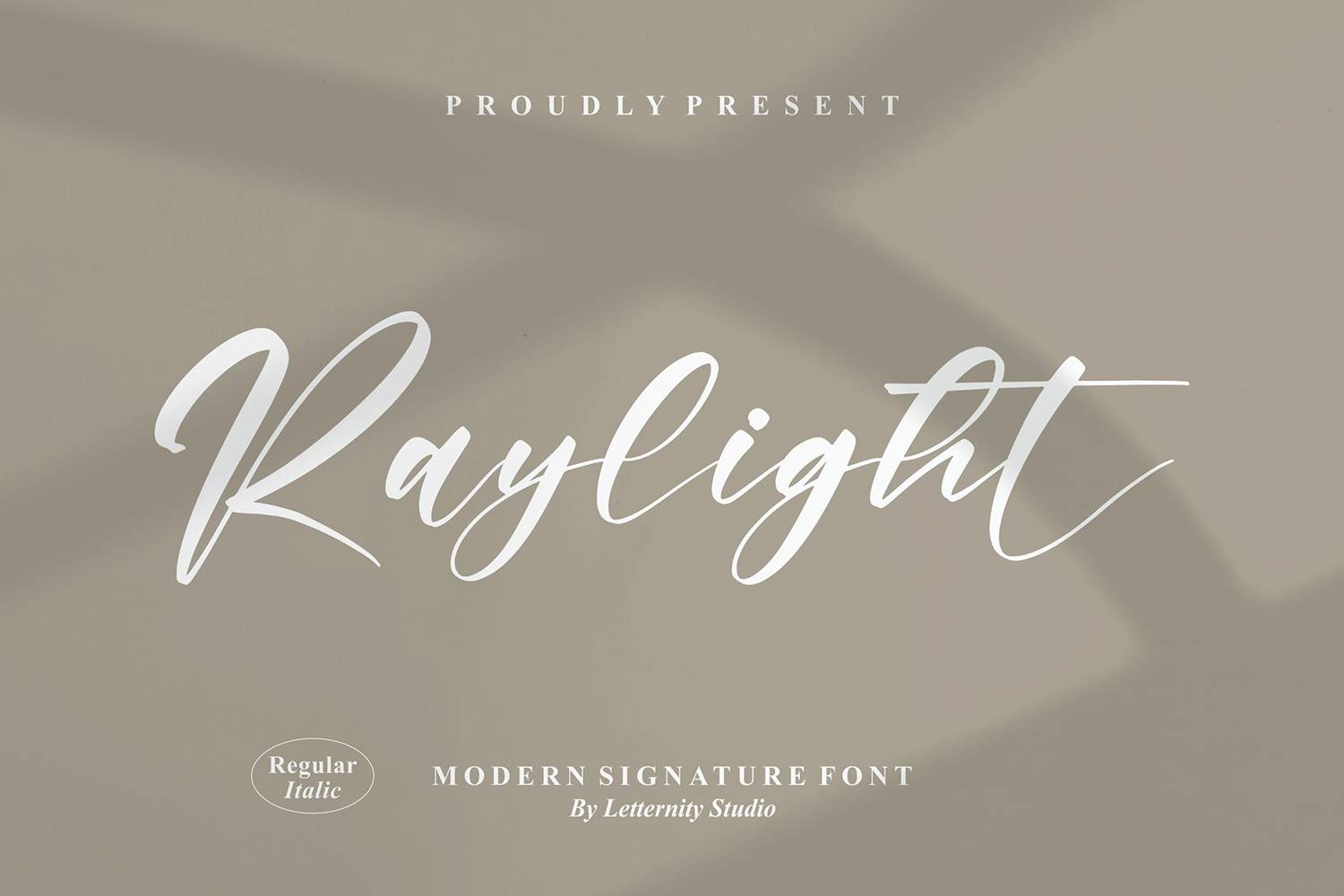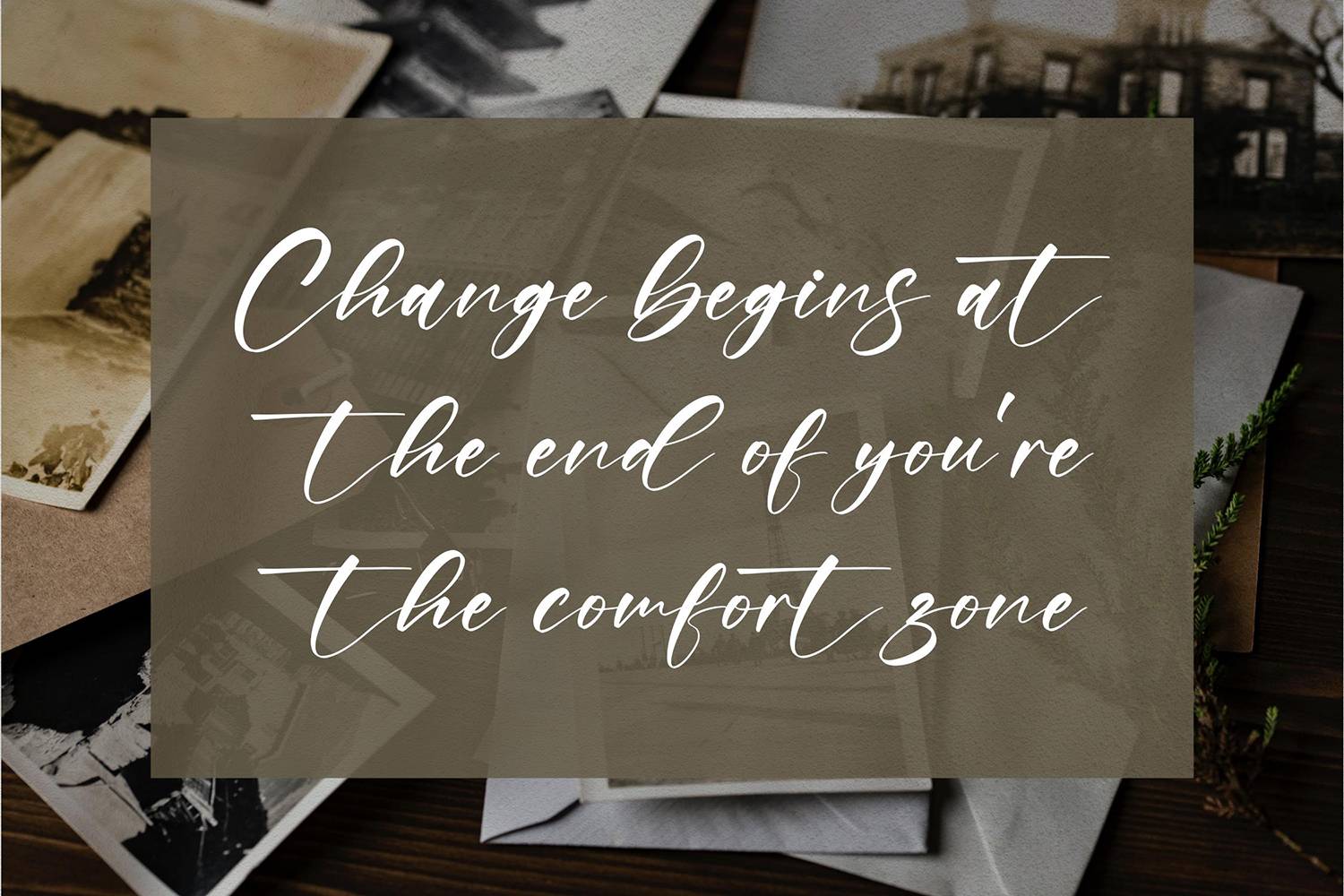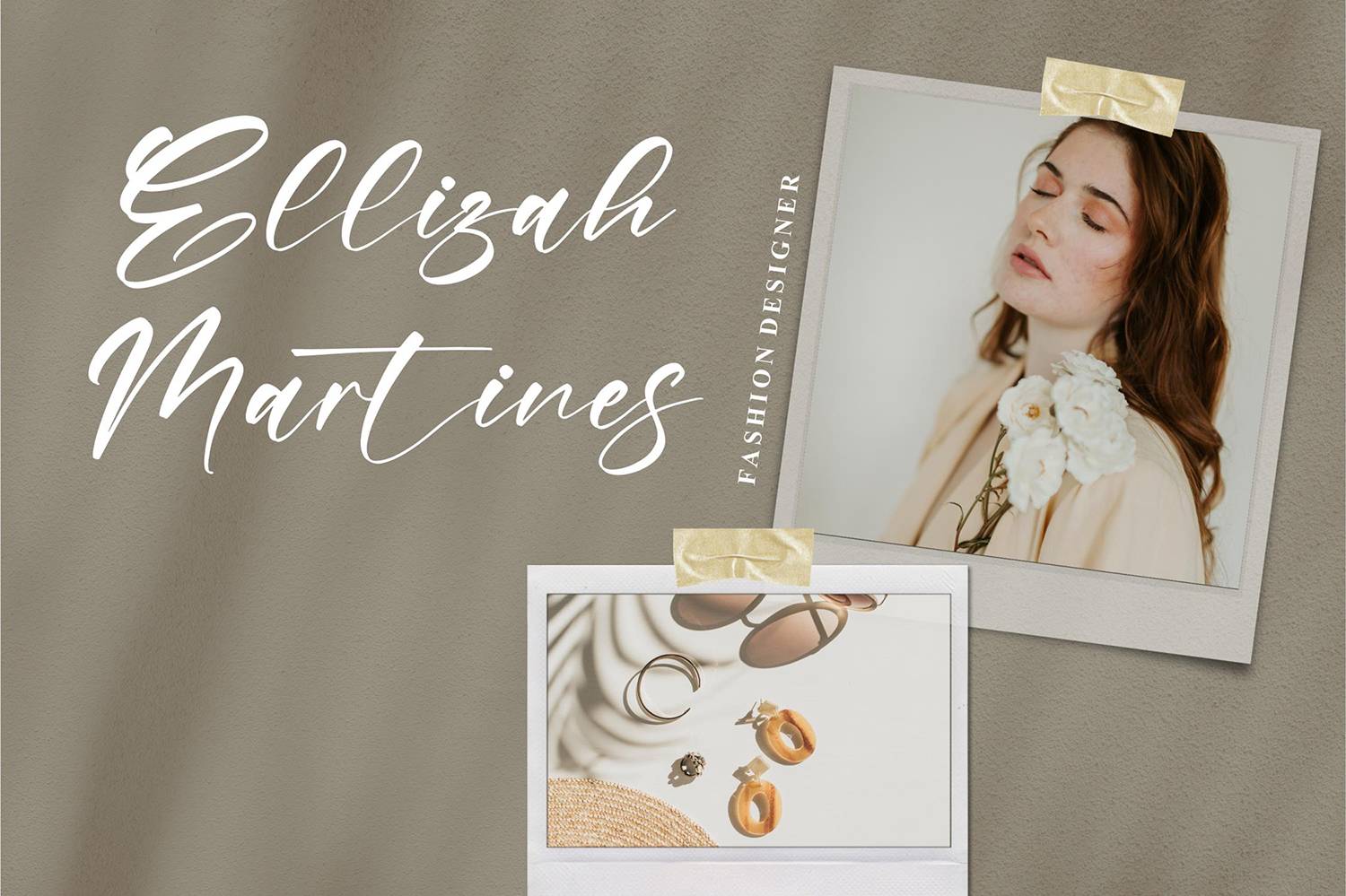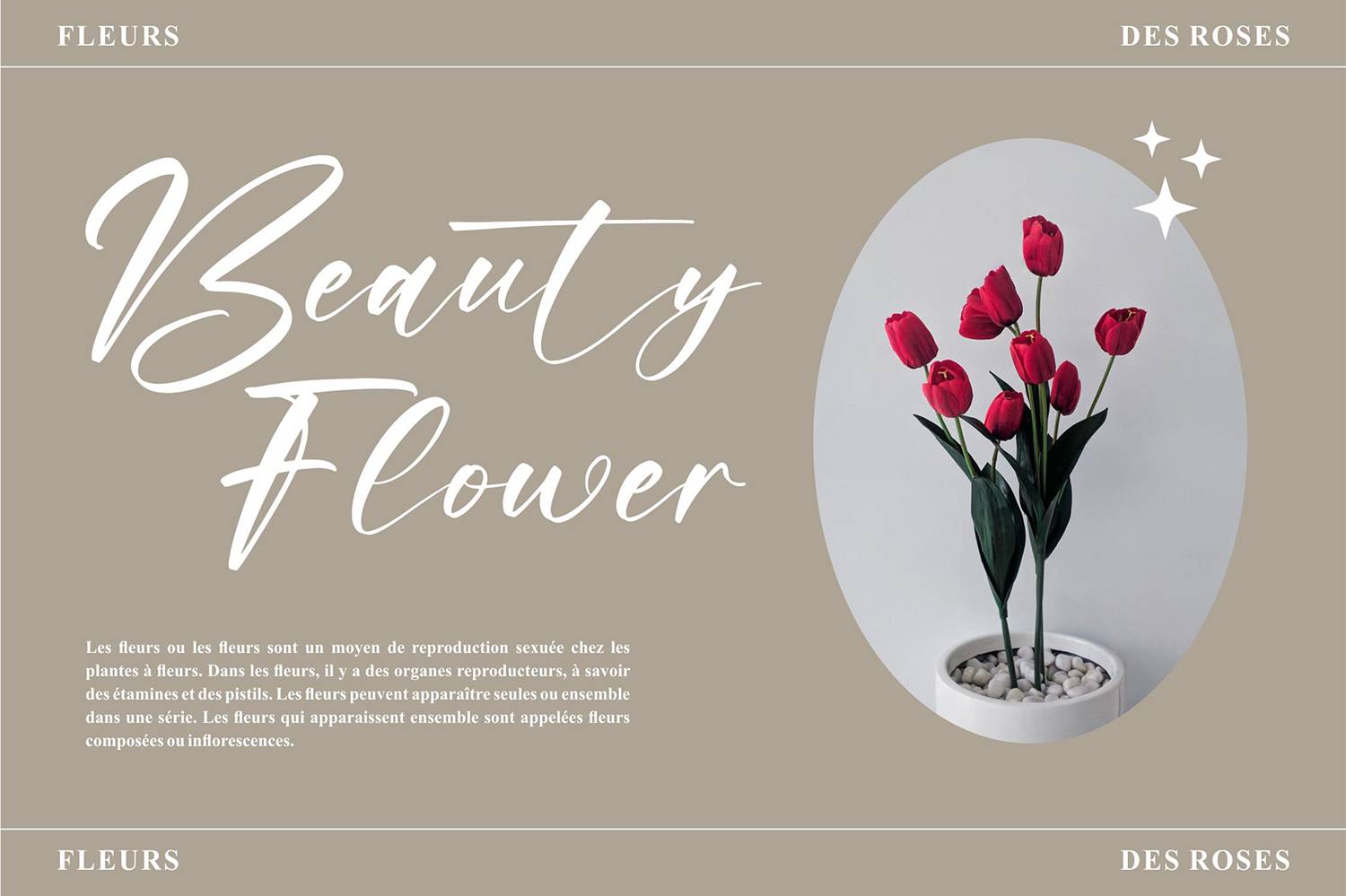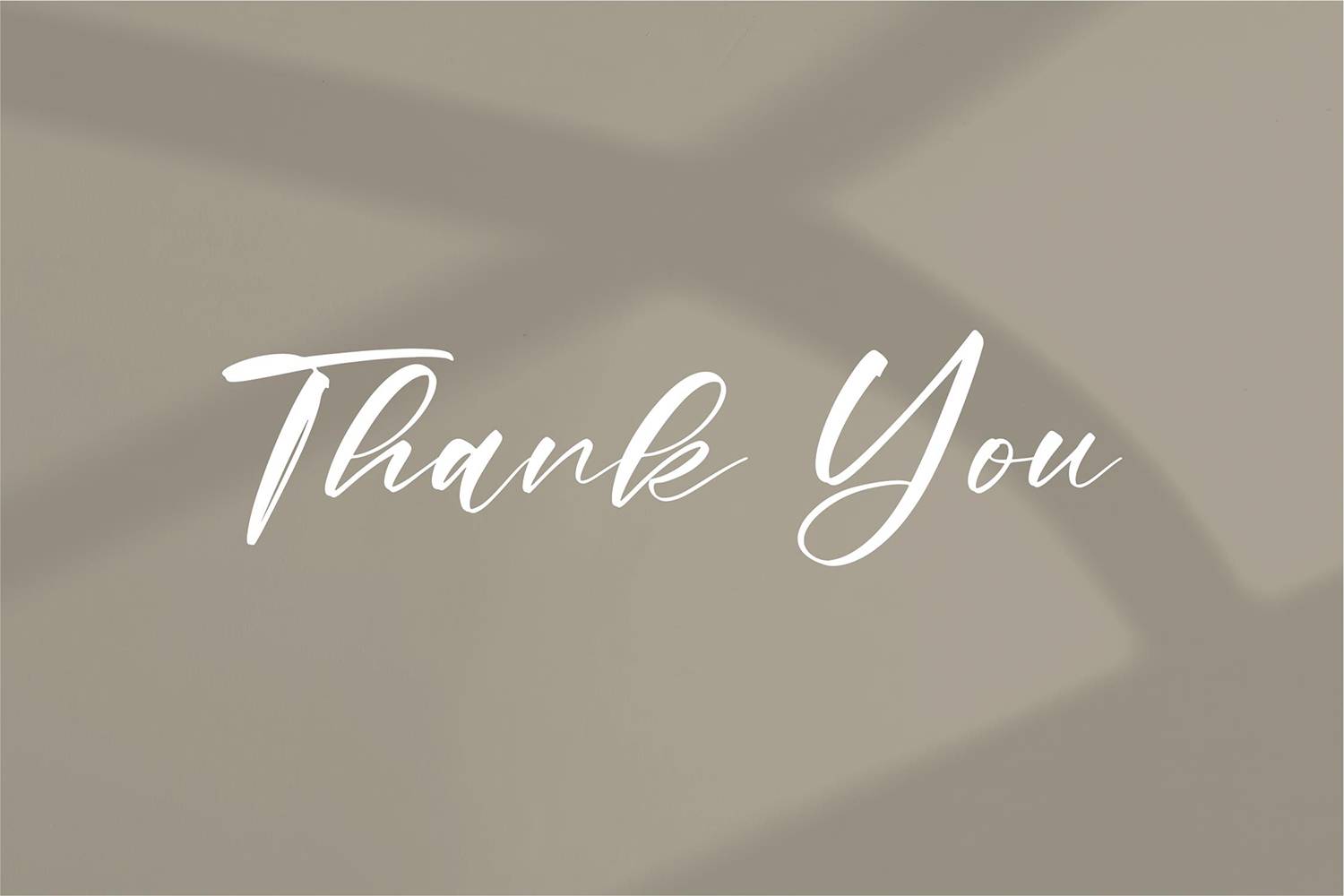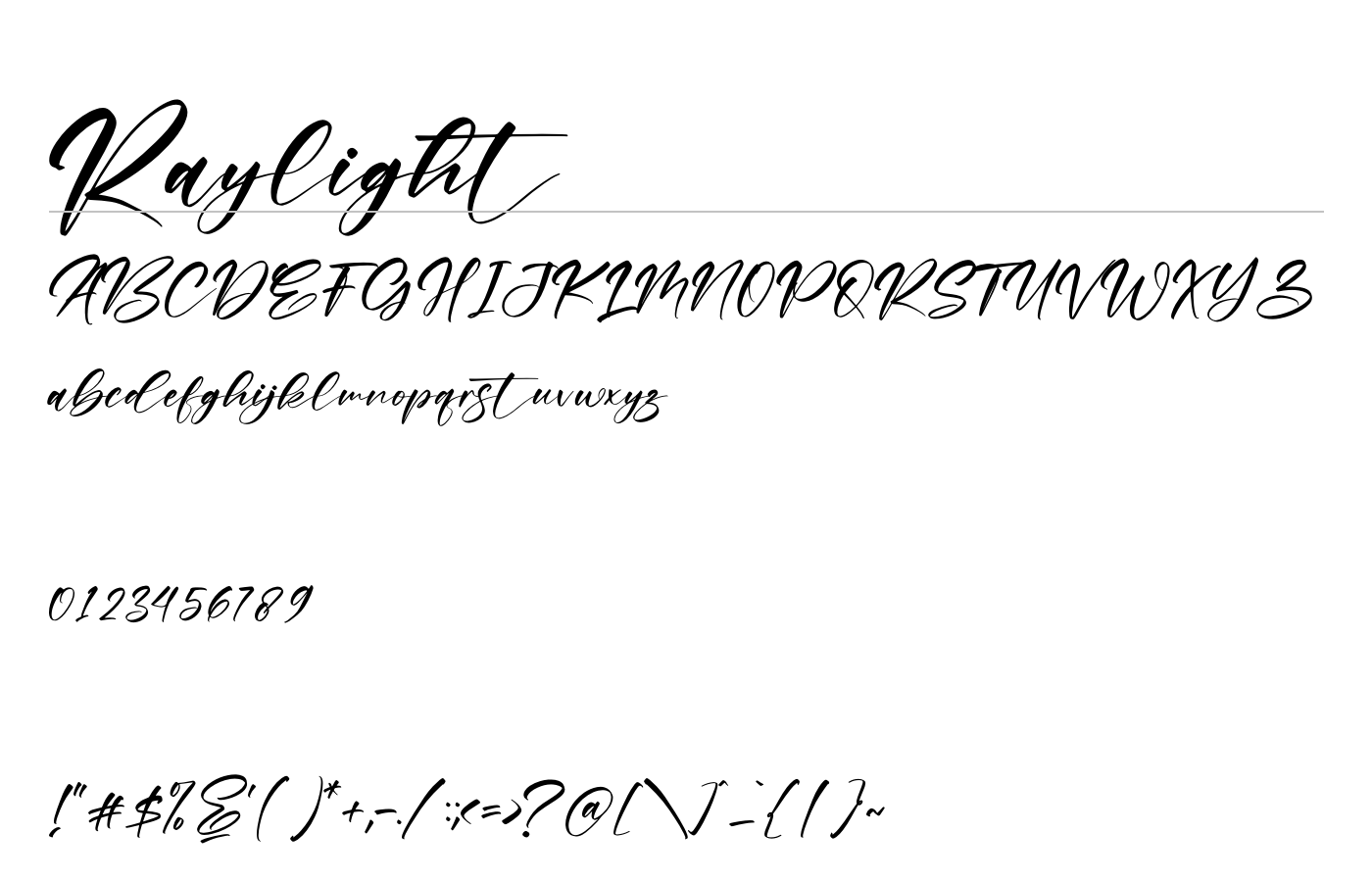
Raylight is a stylish script font with elegant, flowing strokes that emulate natural handwriting. Its slender, slightly textured letterforms convey grace and sophistication, making it perfect for luxury branding, invitations, and fashion design. This font’s refined, artistic personality shines in headlines and logos where a touch of modern elegance is desired.
Raylight Font
About Raylight Font
| Font family | Raylight Font |